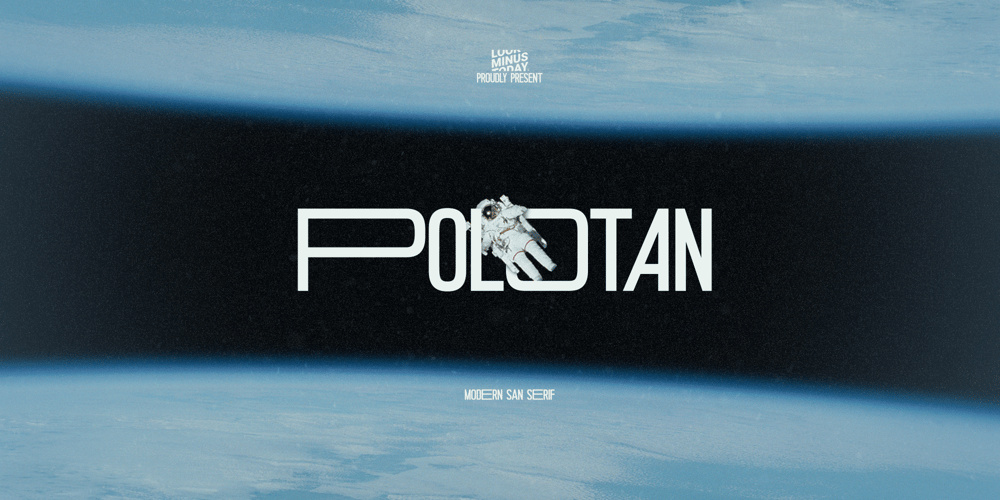
Polotan Font Family was designed by Arif Rijal and published by Look Minus Today. Polotan contains 1 styles and family package options. Introducing Polotan, the ultimate futuristic and modern sans-serif font. With its sleek and streamlined design, Polotan is perfect for creating a cutting-edge, high-tech look that’s perfect for a variety of design applications.Featuring strong lines that convey a sense of power and confidence, Polotan is perfect for headlines, titles, and branding materials. But what sets it apart is its unique alternates, which give you the flexibility to create custom designs that stand out from the crowd. And with its alternates, you can take your designs even further and truly make them your own.Its clean and minimalist design makes it easy to read, while its sharp angles and unique letterforms create a sense of energy and movement!.Whether you’re designing a high-tech website, a sleek user interface, or a modern brand identity, Polotan will help you make a bold and unforgettable impression.So why settle for a boring and outdated font when you can make a statement with Polotan sans-serif? Try it today and see how it can take your designs to the next level.And please message me if you want your language included or if there are any features or glyph requests, feel free to send me a message.